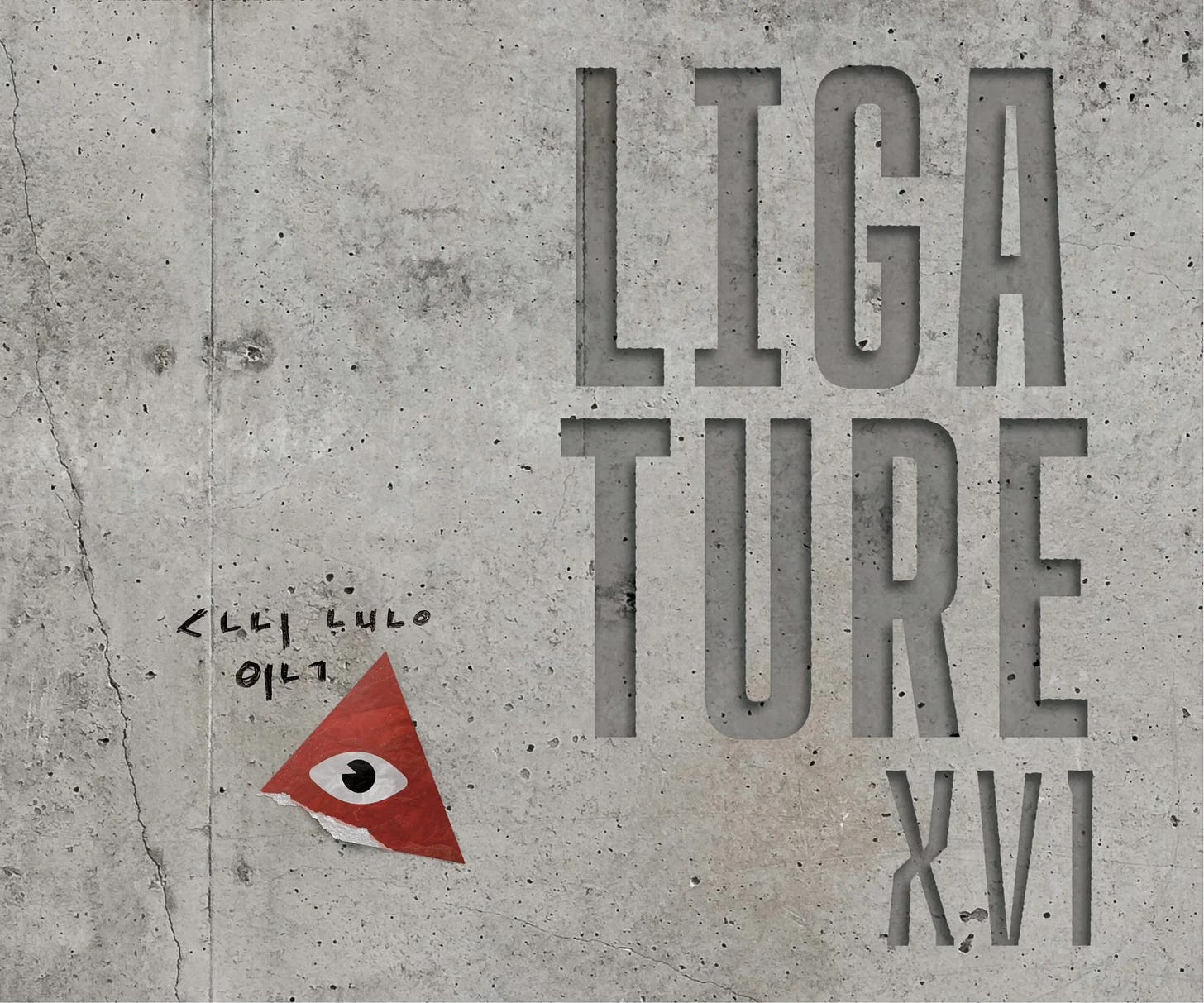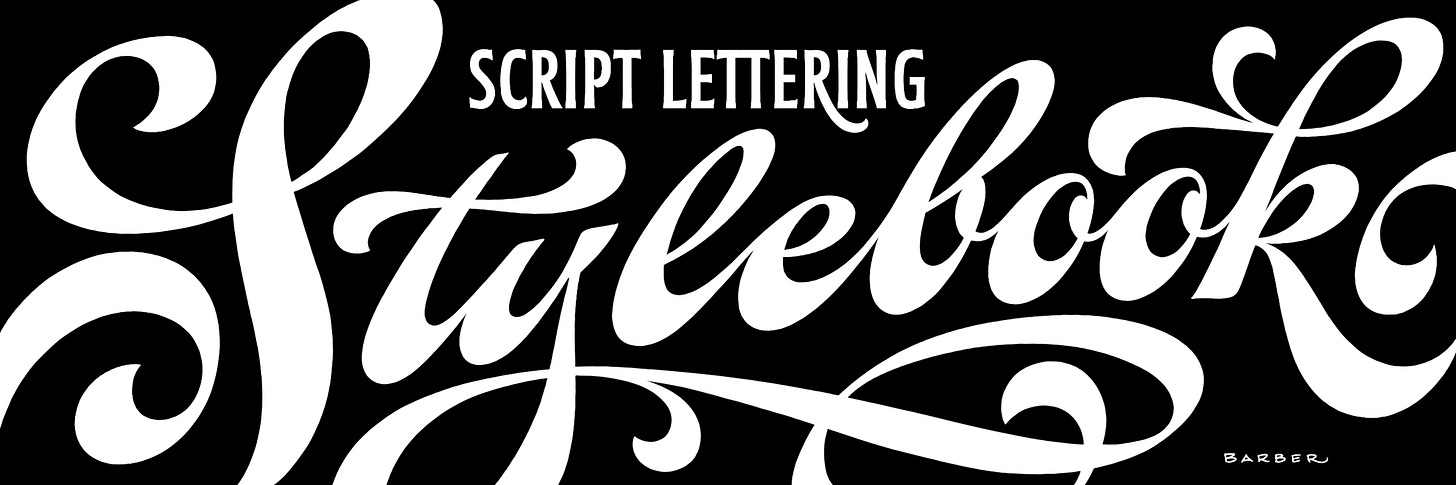
Exhibitions, competitions, classes, and other type-related happenings
After starting the new year strong with our brand-new French Script Lettering workshop, I’ve got my sights set on a few more upcoming alphabetic engagements.
Up next is Script Lettering Stylebook, which kicks off in just a few weeks. In this weekly online course, I’ll work with students one on one as we take a deep dive into essential genres—from traditional flourished script to wild, contemporary styles.
But before that, I’m heading to Sarasota, Florida to participate in the Ligature Exhibition at Ringling College of Art and Design. If you’re in the neighborhood, stop by the opening this Friday, February 6, 2026 to check out the students’ work, say howdy, and maybe even swap some iguana-wrangling stories.